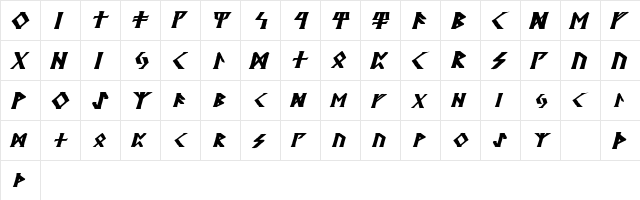
Kehdrai Bold Italic Font Preview
Kehdrai Bold Italic
Kehdrai Bold Italic Font Details
| Foundry | Neale Davidson |
| Designer | Neale Davidson |
Design Context for Kehdrai Typeface
Kehdrai is a composed and adaptable typeface that performs quietly and consistently across a wide range of design contexts. The dynamic lean of this cut emphasises speed and emphasis in any layout. The heavy weight commands attention and anchors typographic hierarchies.
Pro Tip: Try Kehdrai for annotation and caption copy alongside an upright companion — the contrast in angle creates a dynamic but ordered typographic system.